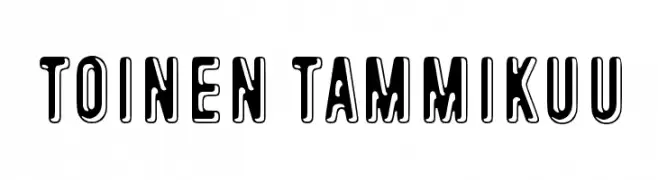
A bold, geometric font with rounded edges and a playful, modern style.
A bold, playful font with a cartoonish and energetic style.
A distressed, melting-style font with jagged outlines and intense visual impact.
A bold, futuristic 3D font with sharp, angular lines and a shadow effect.
A futuristic, bold, and extended font with sharp angles and geometric shapes.
A bold, futuristic typeface with angular, geometric letterforms.
A bold, expressive font with jagged, hand-drawn strokes.
A playful, hand-drawn font with bold, rounded characters and a whimsical style.
A playful, hand-drawn font with a whimsical and creative style.
A dynamic, edgy font with a graffiti-like, handwritten style.
A bold, playful font with jagged edges and a dynamic, hand-drawn style.
A raw, edgy font with a hand-drawn, rebellious style.
A bold, hand-drawn font with dynamic strokes and an expressive, rebellious style.
A sharp, angular font with a modern, edgy style.
A bold, hand-drawn font with dynamic, angular strokes.
A bold, brush-style font with dynamic, edgy strokes.
An elegant, decorative font with flowing curves and intricate details.
A bold, hand-drawn font with a rough, textured style and dynamic character shapes.
A bold, pixelated font with a modern, digital aesthetic.
A bold, angular font with a futuristic and geometric design.
A bold, angular font with inline details, perfect for impactful designs.
A bold, angular font with a geometric and futuristic style.
A bold, angular font with a striking shadow effect for a modern, three-dimensional look.
A bold, cursive font with a flowing, handwritten style.
A vintage-style font with a distressed, letterpress appearance.